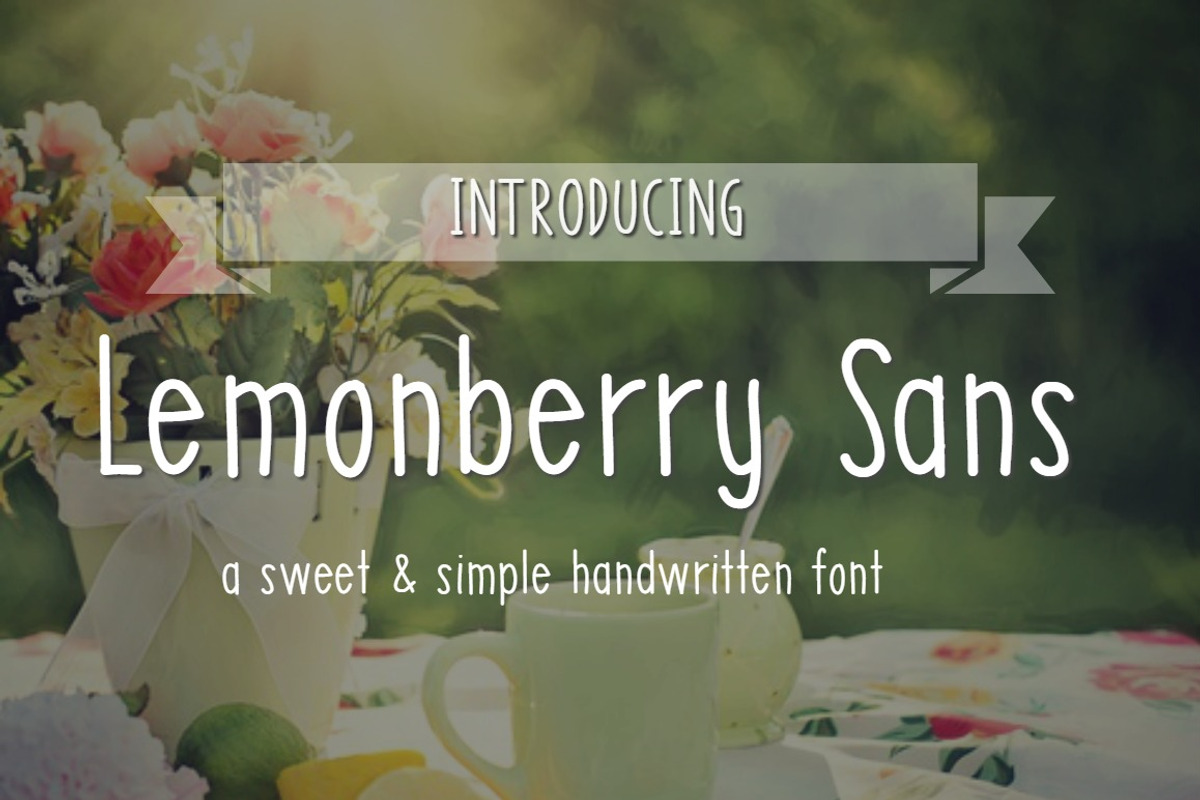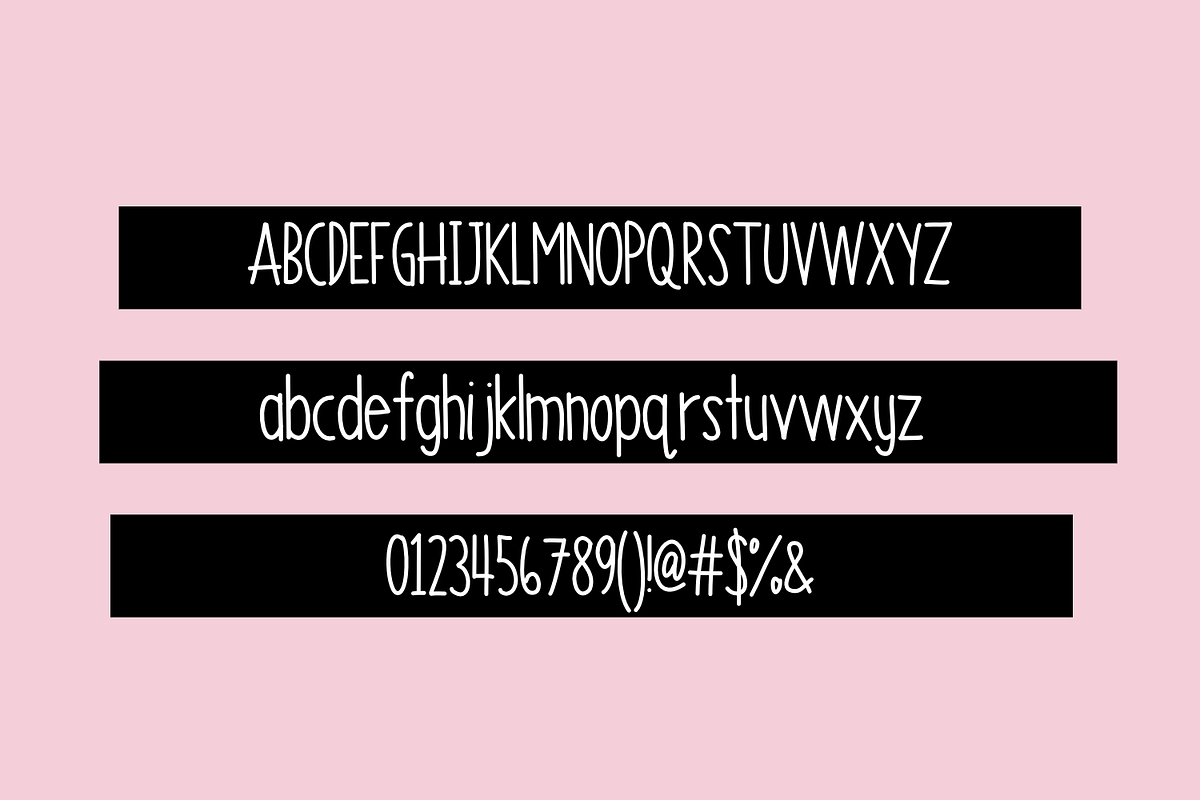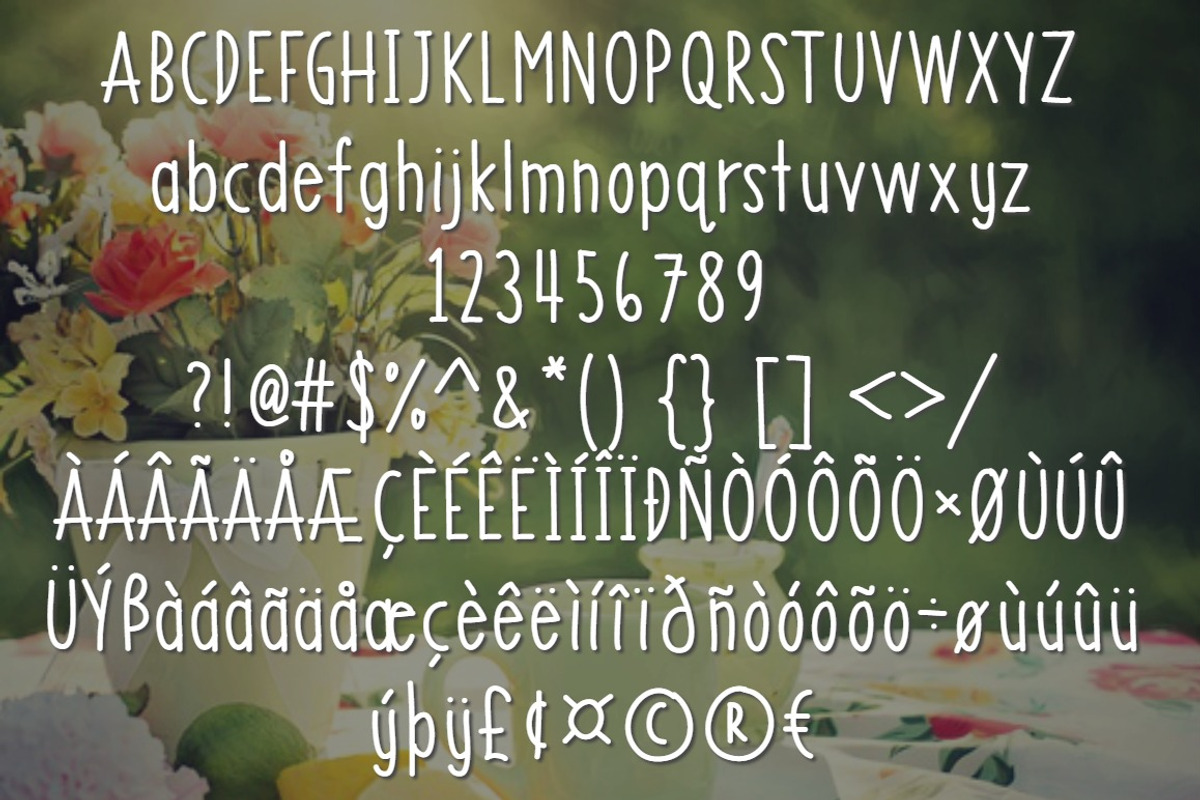
Lemonberry Sans Handwritten Font
Lemonberry Sans Handwritten Font by Sabrina Schleiger Design is a font selected for branding, posters, packaging, typography.
- It also includes Latin extensions to support most European languages.
Why Lemonberry Sans Handwritten Font is worth a look
Lemonberry Sans Handwritten Font by Sabrina Schleiger Design fits naturally into Branding, posters, packaging, typography.